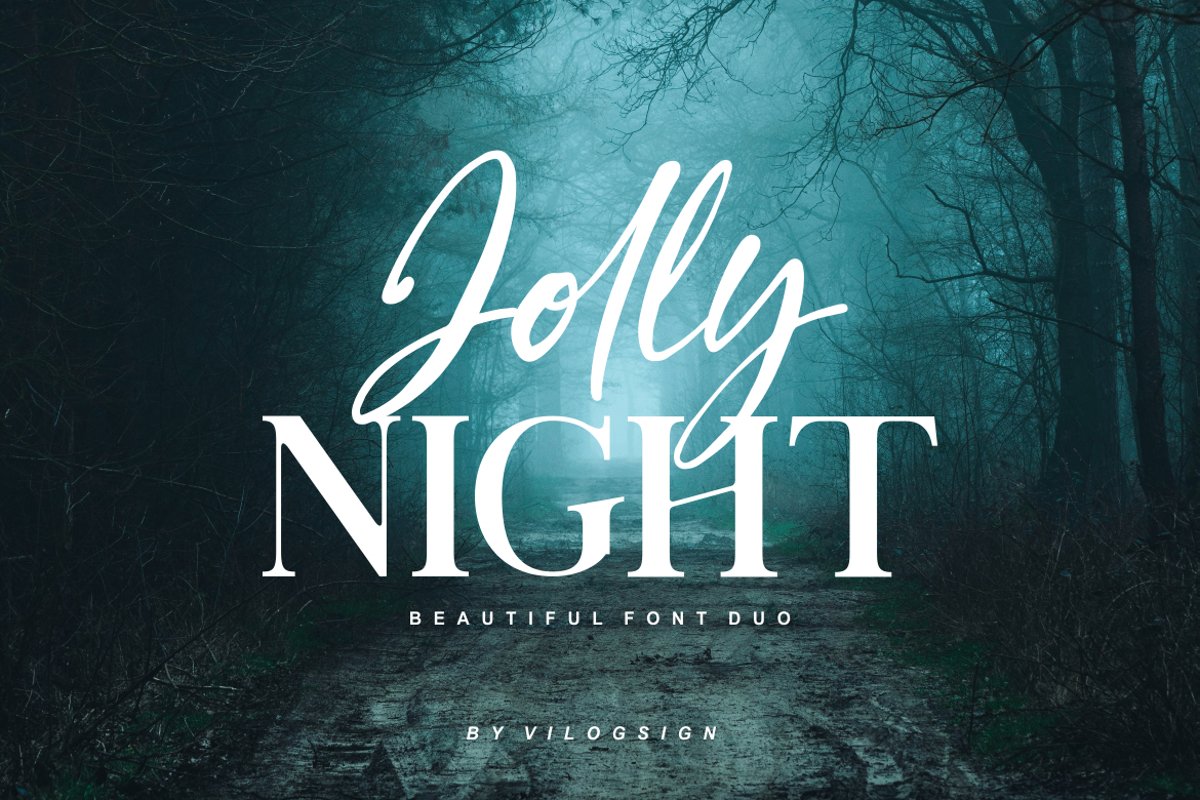
Jolly Night Font Duo
Night Italic
Jolly
Night
Introducing new my font in new years is called "Jolly Night Font Duo". This is beautiful font duo elegant stylish, contemporary pair of script and serif fonts.
This font is very good with additional alternatives like multilingual support and italic style for Night font to complement your needs.
With ccombination Jolly font make this font so perfect for your project.
This font look natural, modern but classic and elegant, very suitable to make a branding, magazine, fashion, quotes, logo, and other.
- Ligature
- Multilingual support (for Night font)